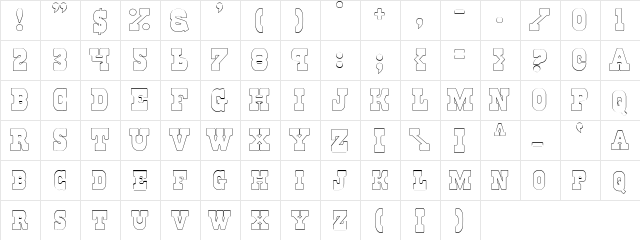
Regulators Outline Outline
Design Context for Regulators Outline Typeface
Regulators Outline brings ornamental detail and strong personality to headlines and identities, where visual impact matters more than quiet functionality.
Font Pairing: Pair with a clean neutral sans-serif for body copy to let Regulators Outline's character lead without overwhelming the composition.
Pro Tip: Treat Regulators Outline as the centrepiece of your typographic hierarchy. One strong heading set in a decorative face can carry an entire layout.